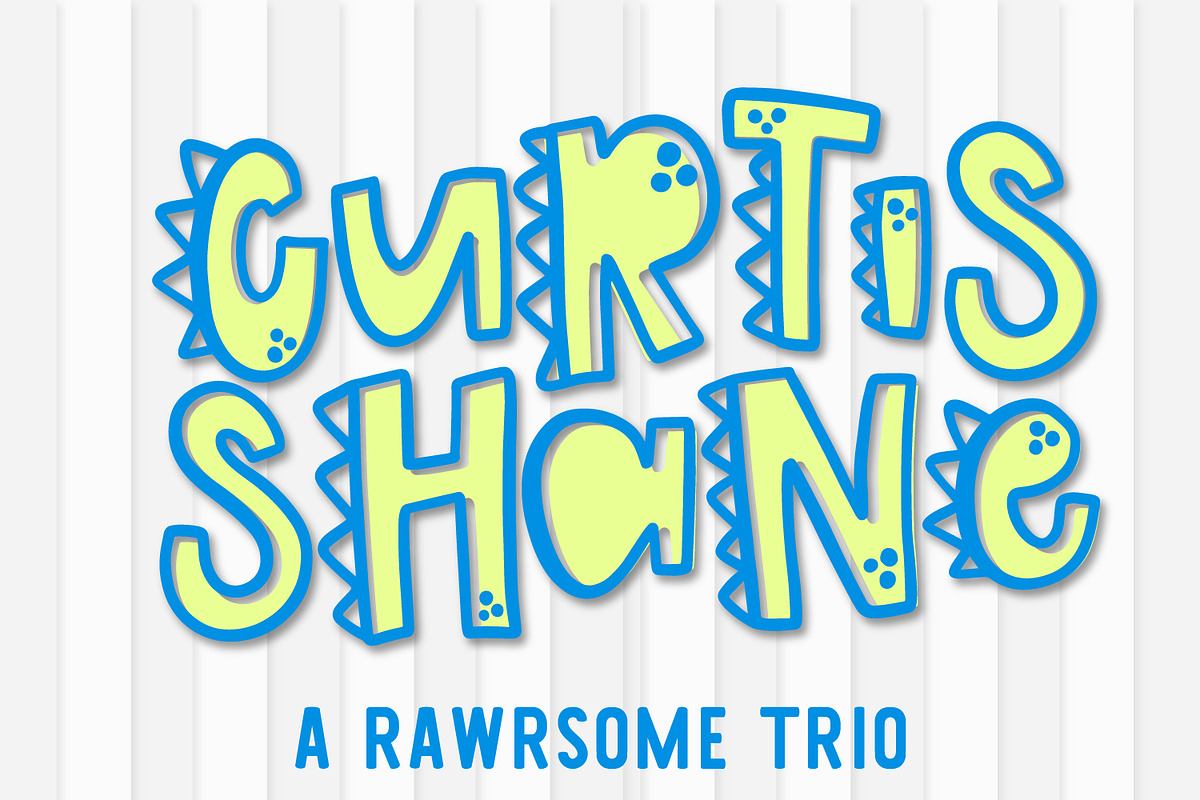
Curtis Shane A Dinosaur Font Free Download is a fun, bold, and playful typeface inspired by prehistoric times and dino-themed designs. With its strong, chunky letterforms and textured details, this font is perfect for children's books, game titles, posters, logos, and anything that needs a roaring, dino-sized impact.
Whether you're creating a Jurassic-themed project or promoting dinosaur-related content, Curtis Shane delivers energy, excitement, and a touch of fun. It's the ideal font for designers who want their typography to stand out and capture the spirit of the wild, prehistoric world.